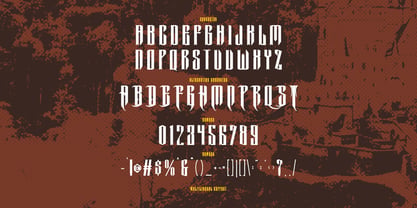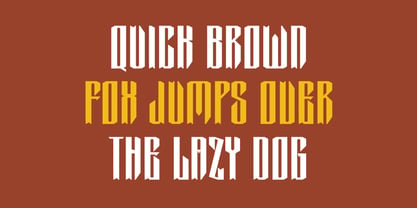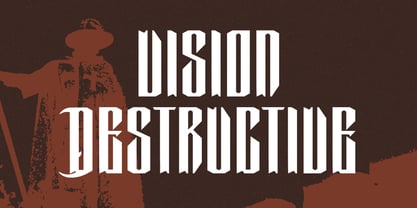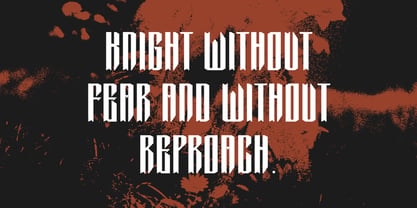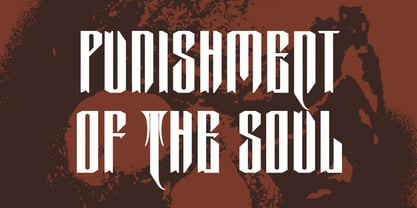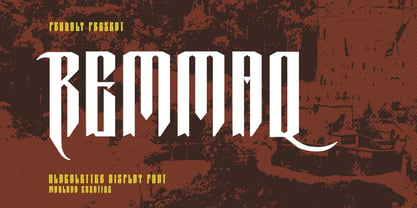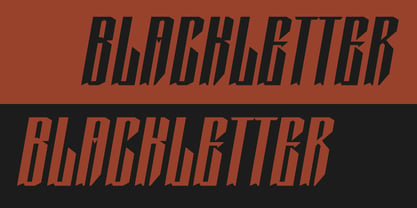
MC Remmaq
por Maulana Creative
La familia tipográfica MC Remmaq fue diseñada por Gilang Maulana y publicada por Maulana Creative. MC Remmaq contiene 1 estilos. Más información sobre esta familia
Introducing Remmaq Blackletter Display Font.
Remmaq Blackletter Font is a handmade Modern Victorian handlettering, which is combining modern and classic typography with some awesome alternates. Yes we back to early 1800s, bring classic touch on this decade.